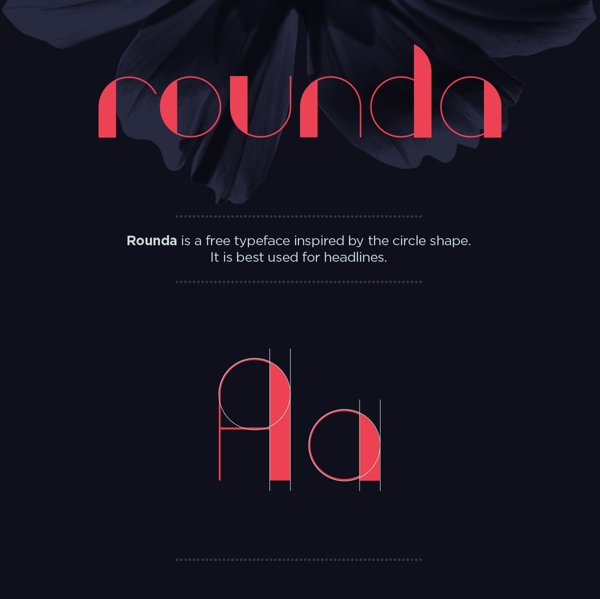
London
Author: Antonio Rodrigues Jr
Description: “London is inspired by and based upon the classic Bodoni (Black MT), with major adjustments on the loops, ears, spurs and overall width.
Rounda
Author: Ina Dimitrova
Description: “Rounda is a free typeface inspired by the circle shape. It is best used for headlines.”